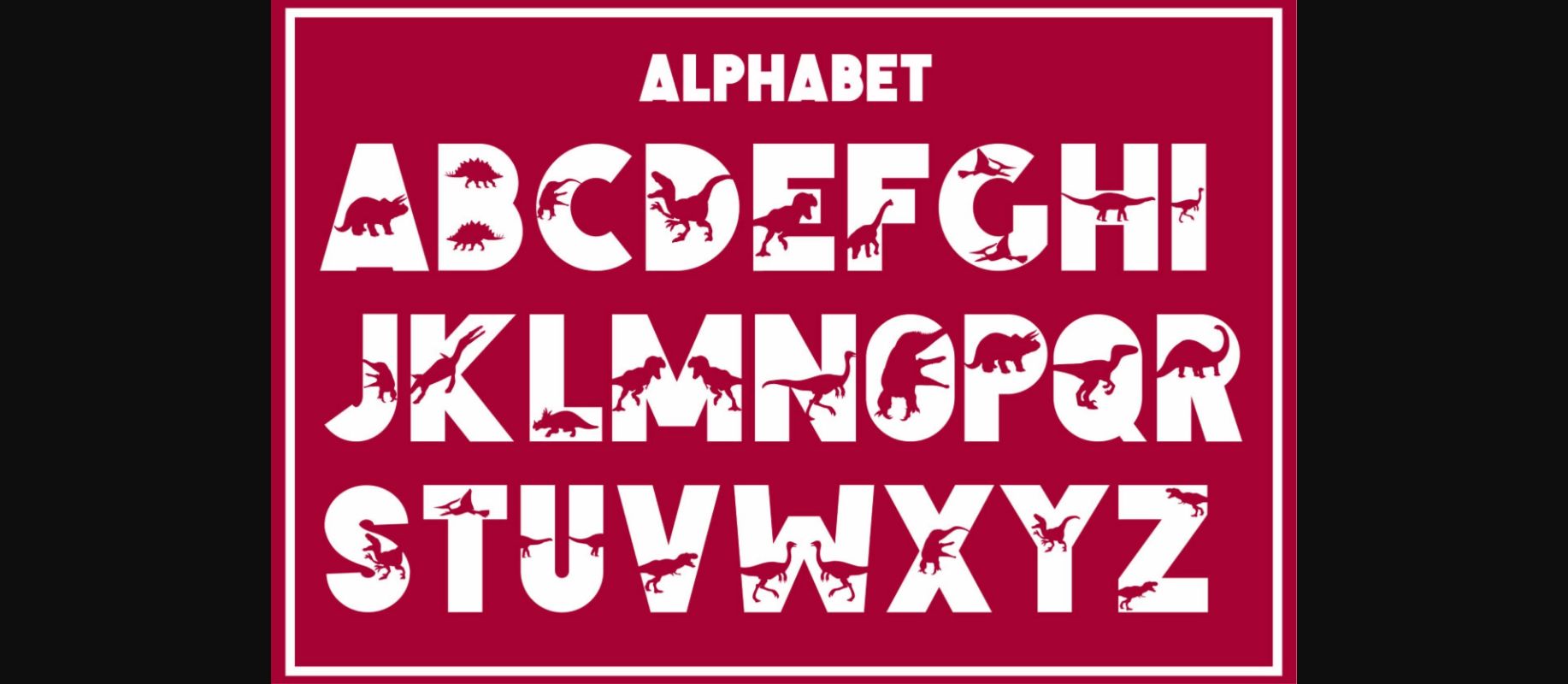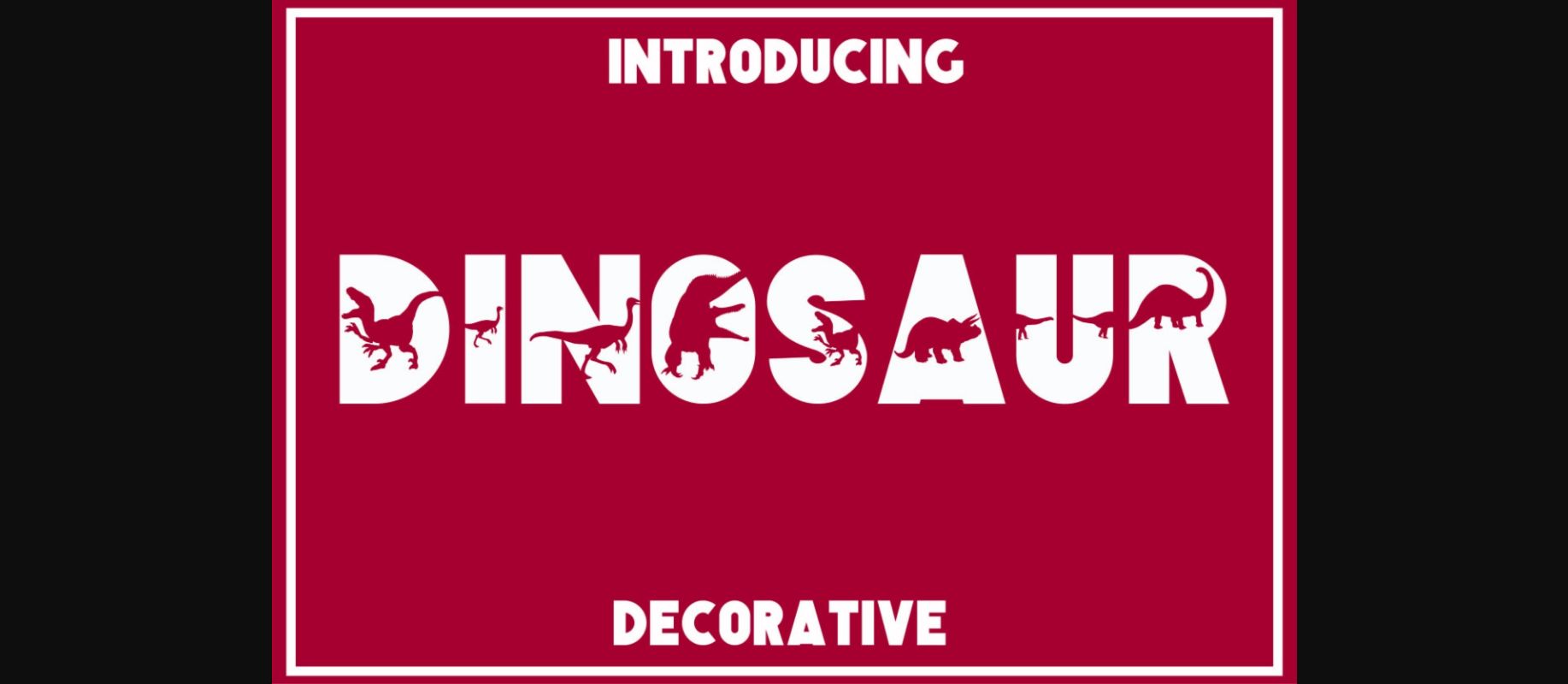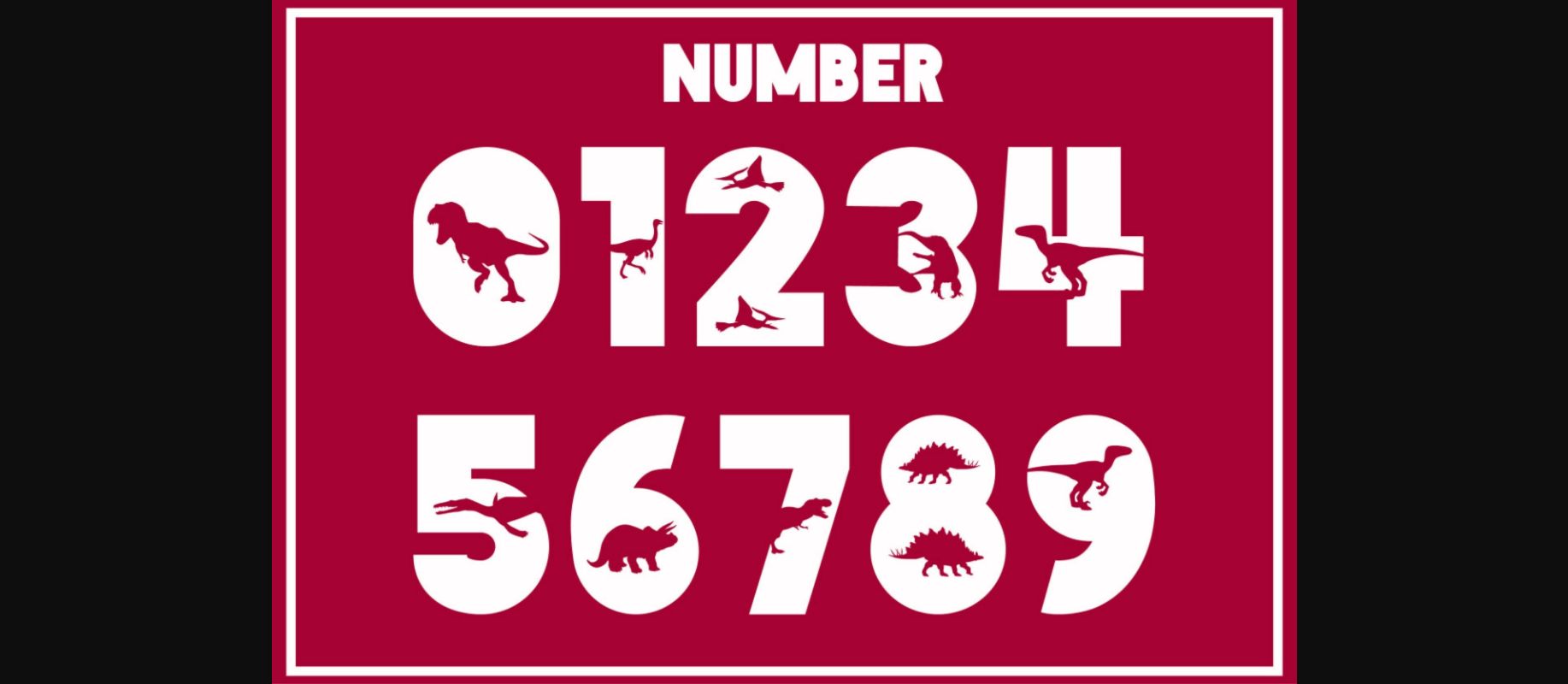
HomeDecorative FontsDinosaur Font Decorative Fonts Dinosaur Font FacebookXPinterestWhatsApp 1 of 5 ... Dinosaur Font Poster 2... Dinosaur Font Poster 3... Dinosaur Font Poster 4... Dinosaur Font Poster 5... About Dinosaur Font Dinosaur is a fun and chunky-lettered decorative font featuring lovely dinosaurs as ornaments. This original look will appeal to a wide range of crafty ideas, from letterheads and titles to stationery. DOWNLOAD NOW People also explored Anatole France Font Handwritten Font Bundle Vol 14 Winter Vintage Font Birthday Lovely Lilia Font Baby Bunny Font Christina Font Bofly Font Rockystyle Signature Font The Sorprendente Font 325 0 TagsDinosaur Font Previous articleGroovy Dog FontNext articleDino Bone Font LEAVE A REPLY Cancel reply Comment: Please enter your comment! Name:* Please enter your name here Email:* You have entered an incorrect email address! Please enter your email address here Website: Save my name, email, and website in this browser for the next time I comment. Personal Use Free Entin Personal Use Free Read more about this font Token No 721 Personal Use Free Read more about this font Carved Wood Personal Use Free Read more about this font Omira Personal Use Free Read more about this font BLOG Fonts That Capture the Spirit of New York City New York City is more than just a place—it’s an experience, a rhythm, a visual language... Using Fonts in Digital Marketing: Tips to Strengthen Your Brand Identity Top 7 Google Fonts Alternatives for Faster and Privacy-Friendly Web Design (2025) Top 10 Handwritten Fonts That Elevate Your Designs